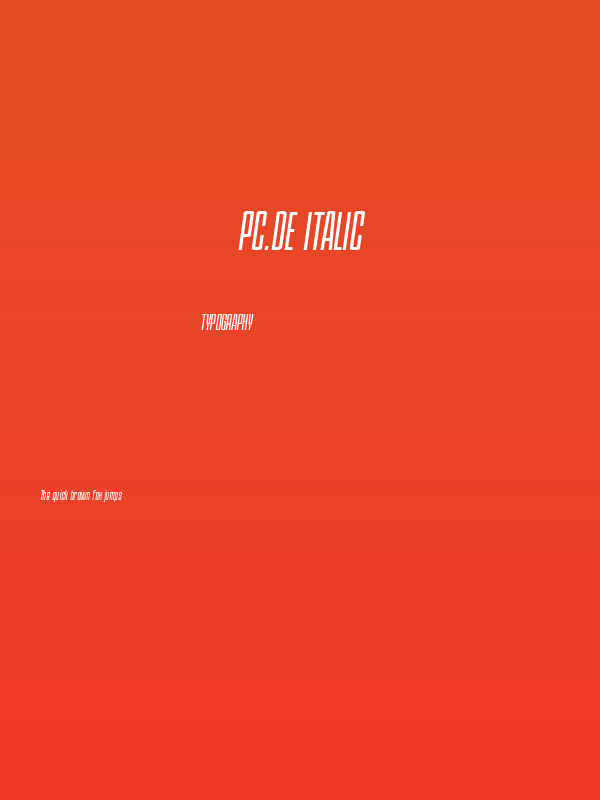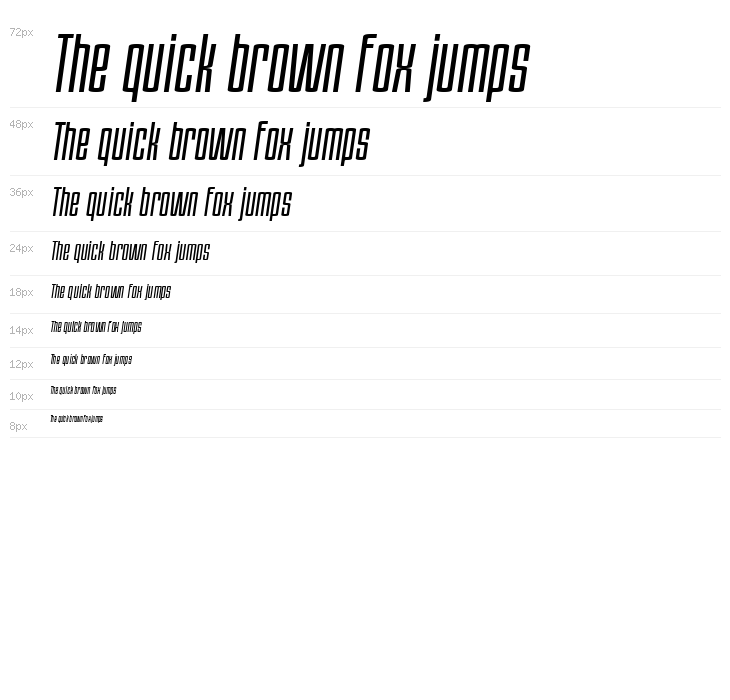
PC.DE Italic Font
PC.DE Italic Description
This font features a sleek, italicized design with a modern and dynamic appearance. The characters are slightly condensed, giving it a streamlined and efficient look. The strokes are consistent in weight, providing a uniform appearance across all characters. The slanted style adds a sense of motion and speed, making it ideal for projects that require a contemporary and energetic feel. The font includes a full set of uppercase and lowercase letters, numbers, and a variety of special characters, ensuring versatility in its application.
| Proposed Projects | Ideal for branding, sports-related designs, automotive industry materials, and dynamic advertising campaigns. |